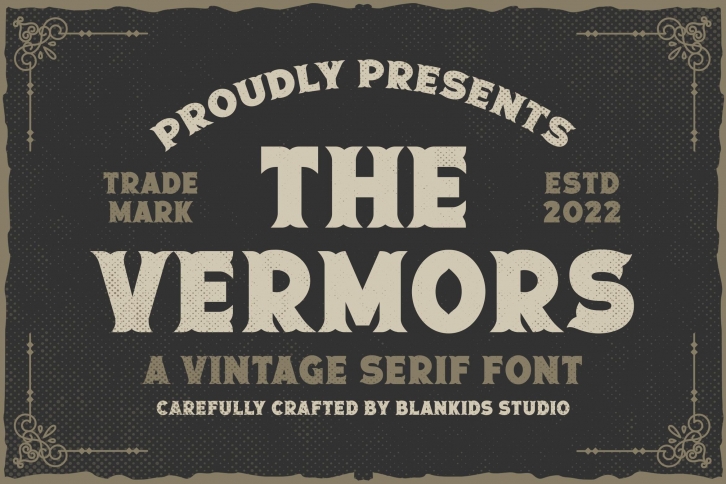
Vermors a Vintage Serif is a beautiful font that was designed by Blankids. It's a great choice for designers and creatives who need such a font. It was released on May 11, 2022 and the file size is 10.23 MB. Vermors a Vintage Serif may give a more youthful, expressive and casual look to your project. It is a very beautiful, refined, elegant, and high-quality font.